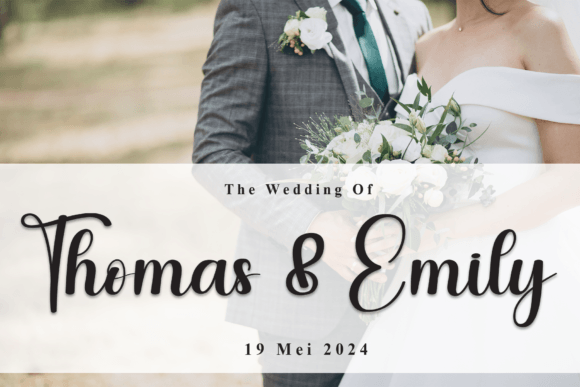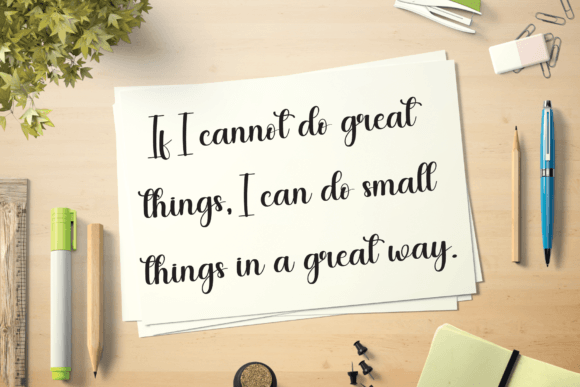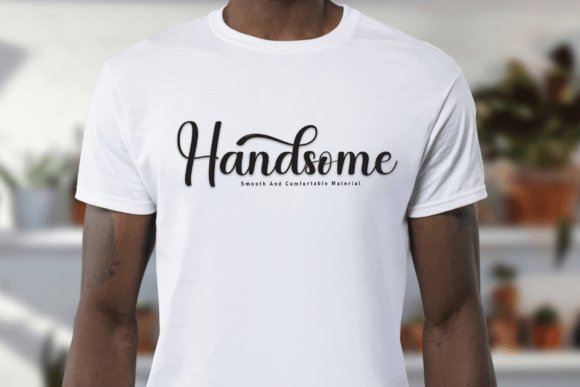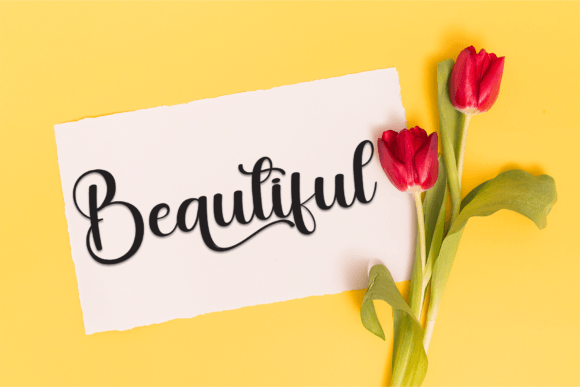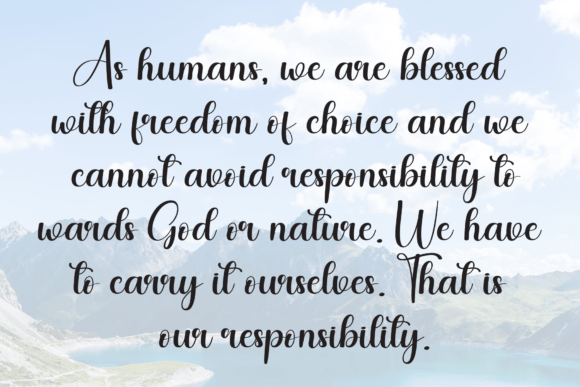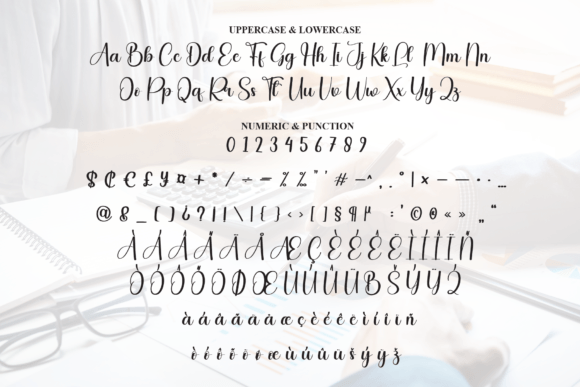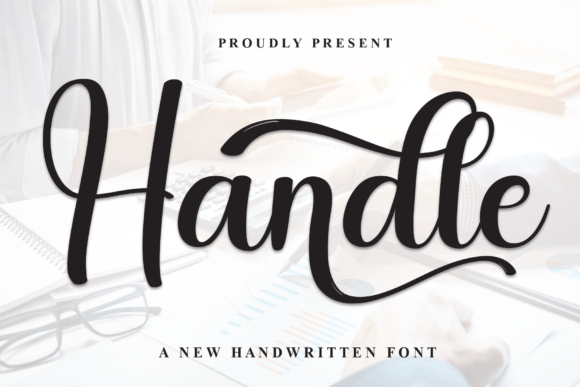
Introducing Handle Font: The Ultimate Playful Handwritten Font for Your Designs
Are you tired of using the same old fonts in your designs? Do you want to add a touch of fun and playfulness to your projects? Look no further than Handle Font, a charmingly playful handwritten font that radiates sweetness and friendliness. In this article, we’ll introduce you to this delightful display font and explore its features, uses, and benefits.
A Font that Combines Cuteness and Functionality
Handle Font is a unique and versatile font that seamlessly blends cuteness and functionality. Its playful and handwritten style makes it perfect for adding an element of fun to your designs, while its clarity and legibility ensure that it remains functional. Whether you’re designing wedding invitations, personalized greeting cards, or any other project that requires a touch of whimsy, Handle Font is the perfect choice.
Key Features of Handle Font
• Playful and Handwritten Style: Handle Font features a charmingly playful handwritten style that adds a touch of fun and personality to your designs.
• Cute and Friendly: The font radiates sweetness and friendliness, making it perfect for designs that require a warm and approachable tone.
• Delightful Display Font: Handle Font is a display font that is designed to make a statement. Its unique and playful style ensures that your designs stand out from the crowd.
• Seamlessly Blends Cuteness and Functionality: The font combines cuteness and functionality, making it perfect for designs that require both style and substance.
Uses of Handle Font
Handle Font is a versatile font that can be used in a variety of design projects, including:
• Wedding Invitations: Add a touch of whimsy and romance to your wedding invitations with Handle Font.
• Personalized Greeting Cards: Make your greeting cards stand out with Handle Font’s playful and handwritten style.
• Social Media Graphics: Use Handle Font to add a touch of fun and personality to your social media graphics.
• Branding and Packaging: Handle Font can be used to create unique and eye-catching branding and packaging designs.
Benefits of Using Handle Font
Using Handle Font in your designs offers a range of benefits, including:
• Unique and Eye-Catching Designs: Handle Font’s playful and handwritten style ensures that your designs stand out from the crowd.
• Emotional Connection: The font’s cute and friendly style helps to create an emotional connection with your audience.
• Versatility: Handle Font can be used in a variety of design projects, from wedding invitations to social media graphics.
• Easy to Read: Despite its playful style, Handle Font remains clear and easy to read, making it perfect for designs that require both style and substance.
Tips for Using Handle Font
Here are some tips for using Handle Font in your designs:
• Use it as a Display Font: Handle Font is designed to make a statement, so use it as a display font to add emphasis and personality to your designs.
• Pair it with Other Fonts: Handle Font can be paired with other fonts to create a unique and eye-catching design.
• Experiment with Colors: Handle Font looks great in a range of colors, so experiment with different colors to find the perfect combination for your design.
In conclusion, Handle Font is a charmingly playful handwritten font that radiates sweetness and friendliness. Its unique and playful style makes it perfect for adding an element of fun to your designs, while its clarity and legibility ensure that it remains functional. Whether you’re designing wedding invitations, personalized greeting cards, or any other project that requires a touch of whimsy, Handle Font is the perfect choice. So why not give it a try and see how it can elevate your designs?